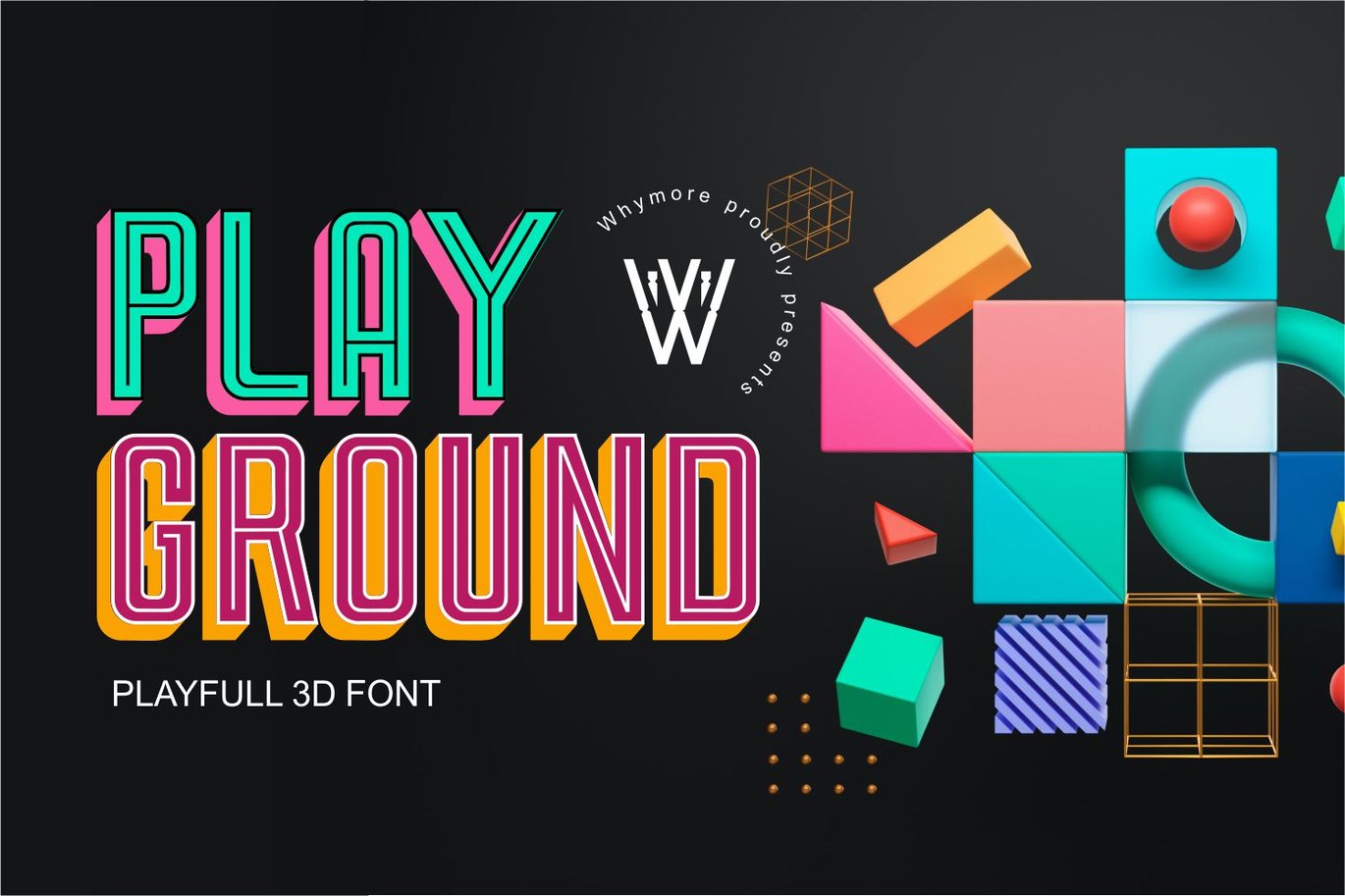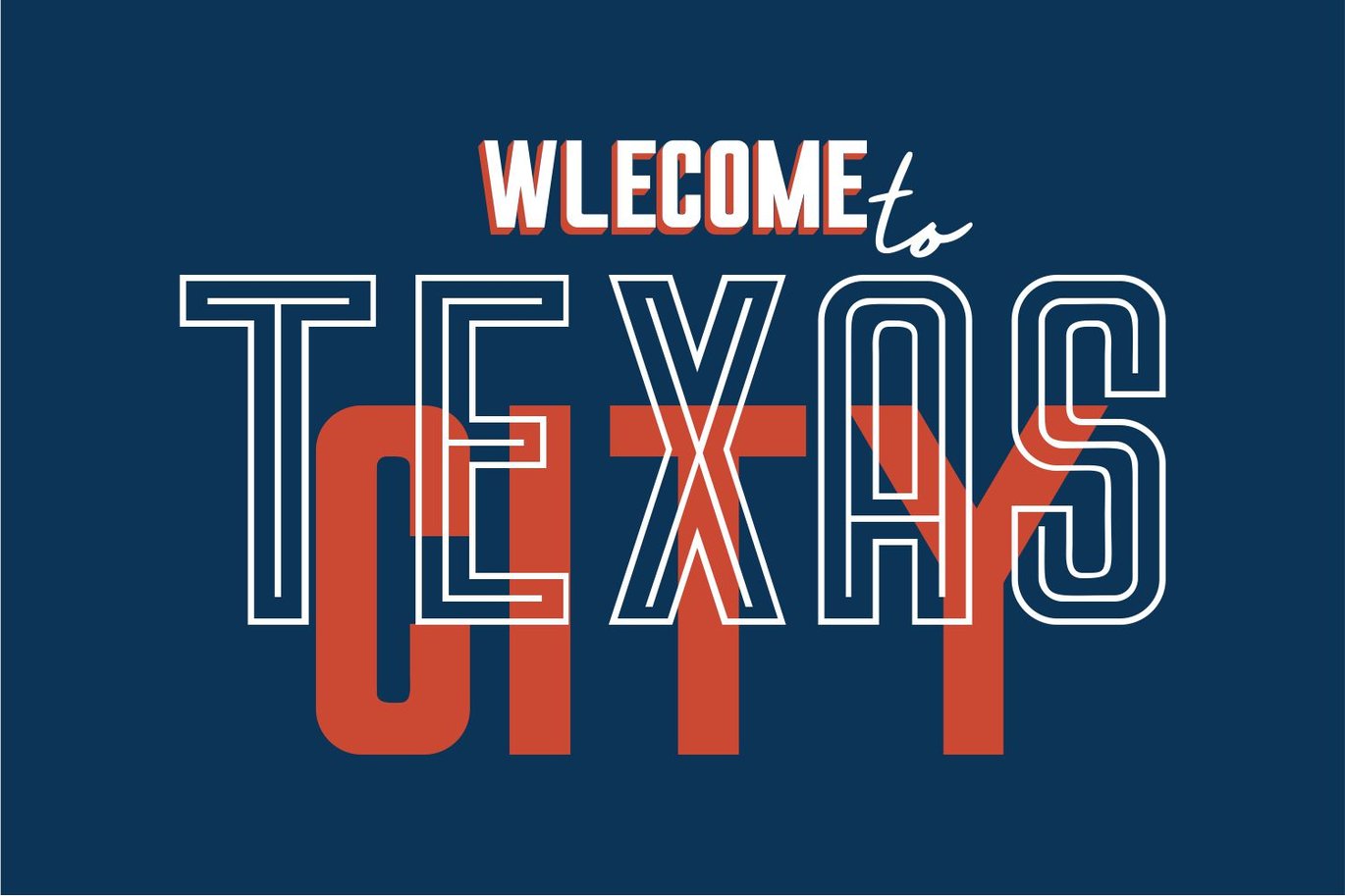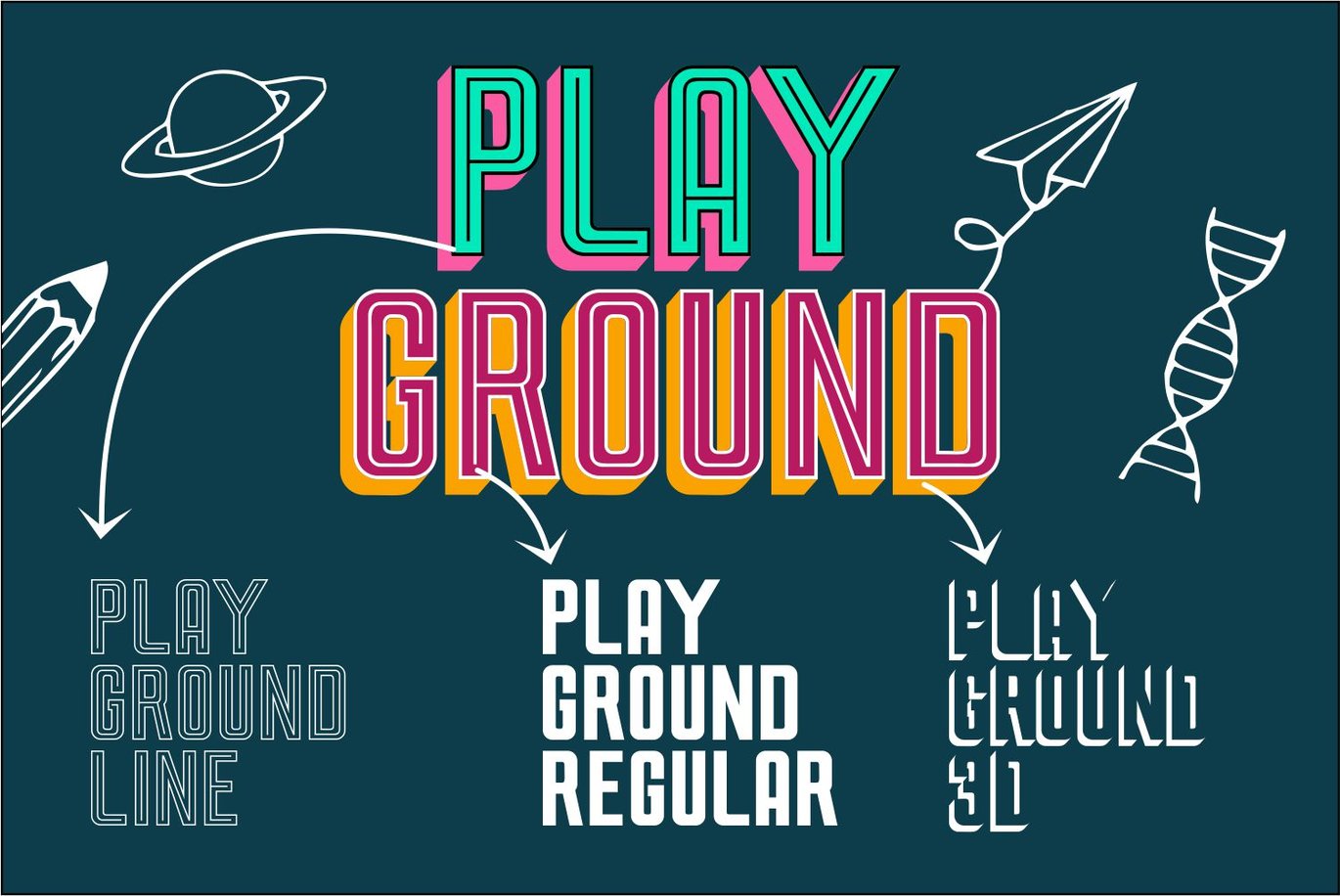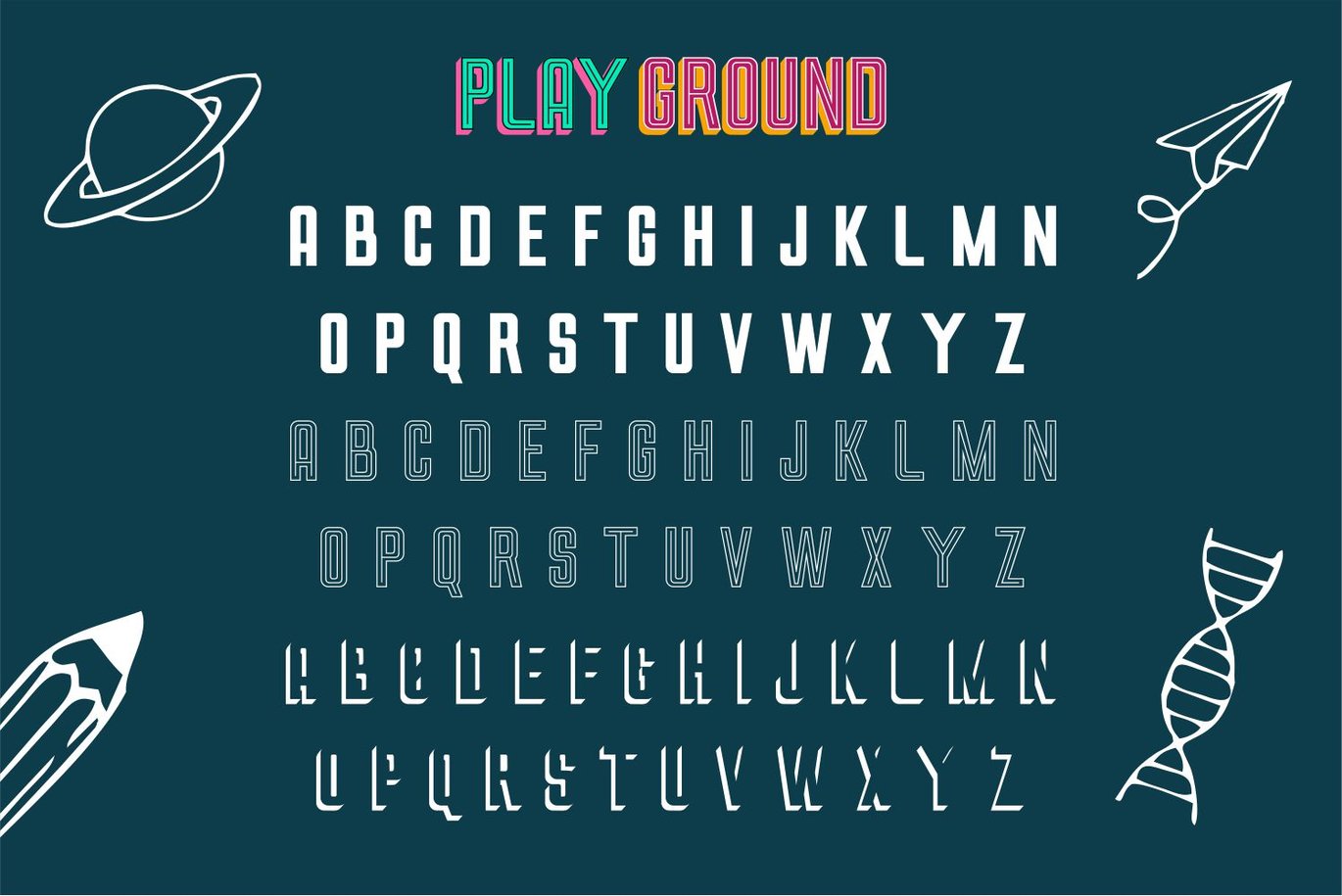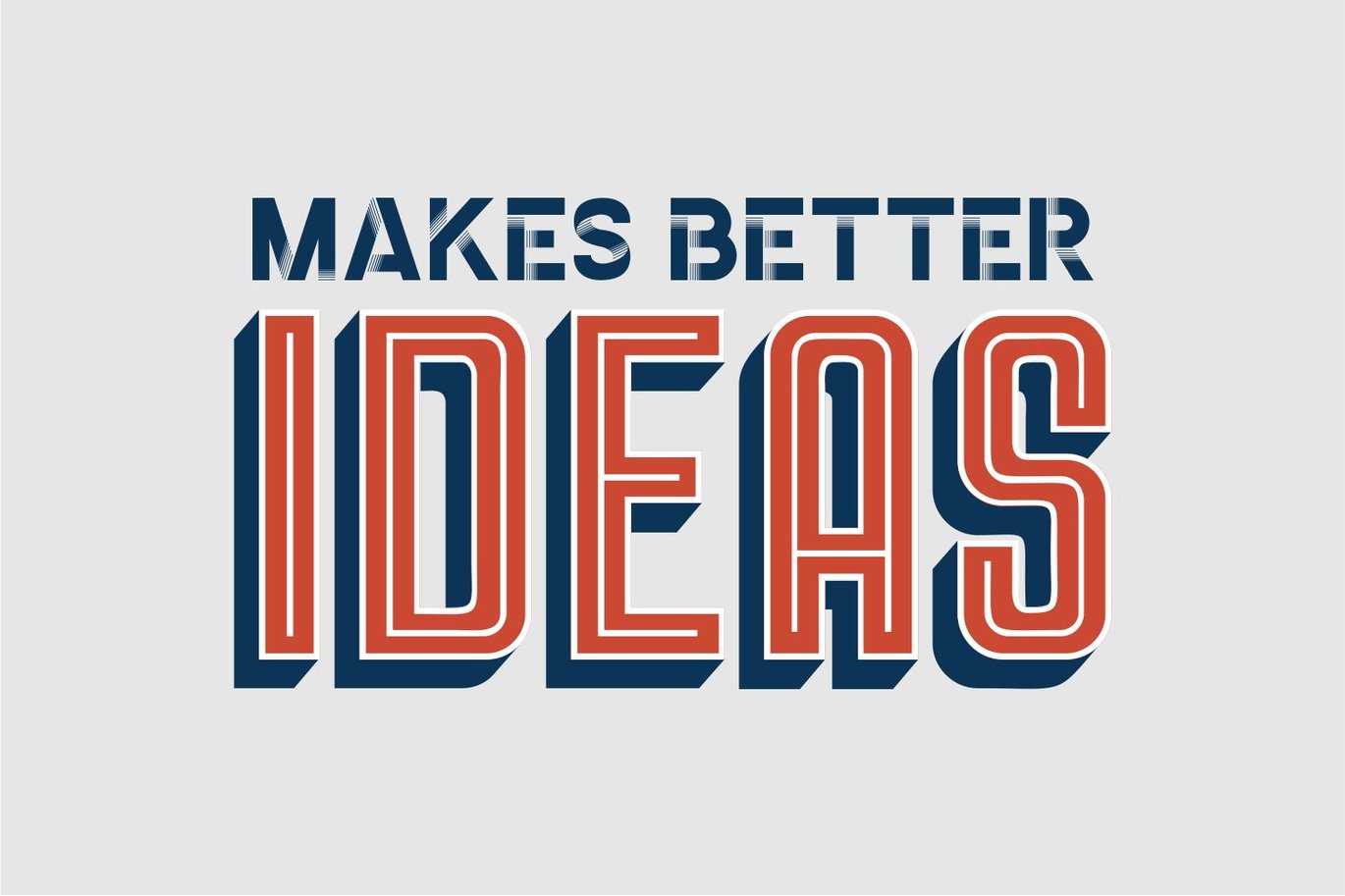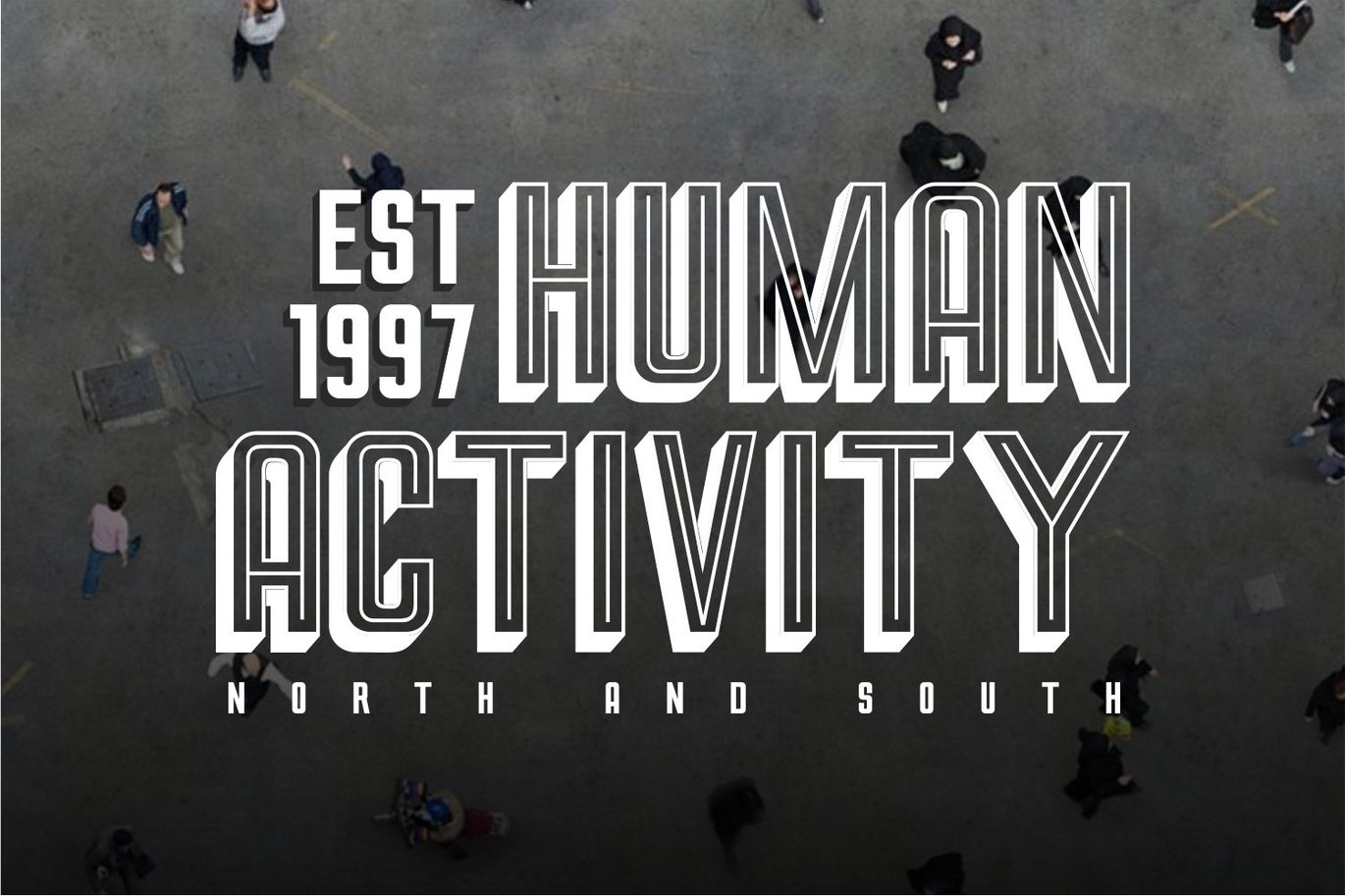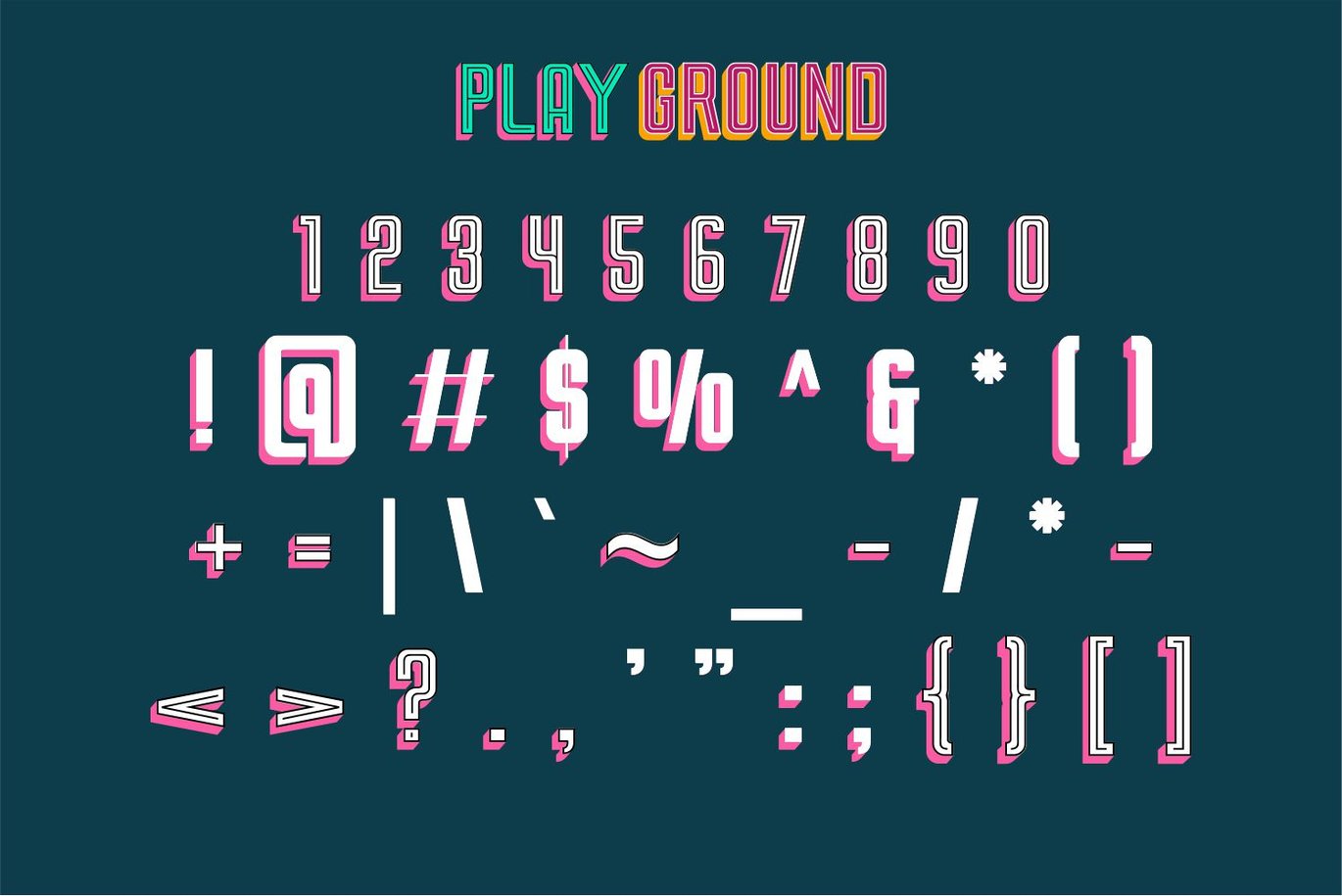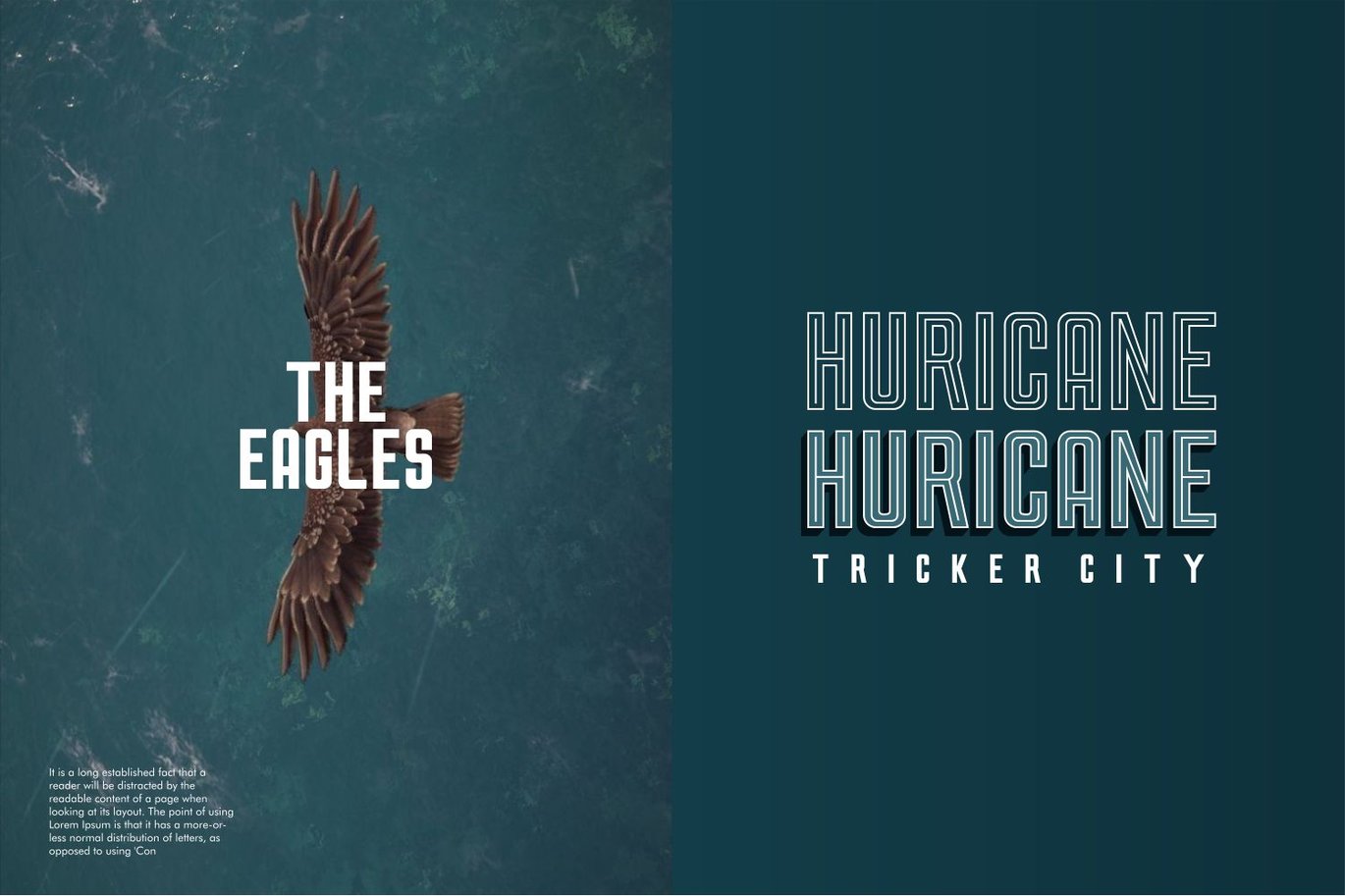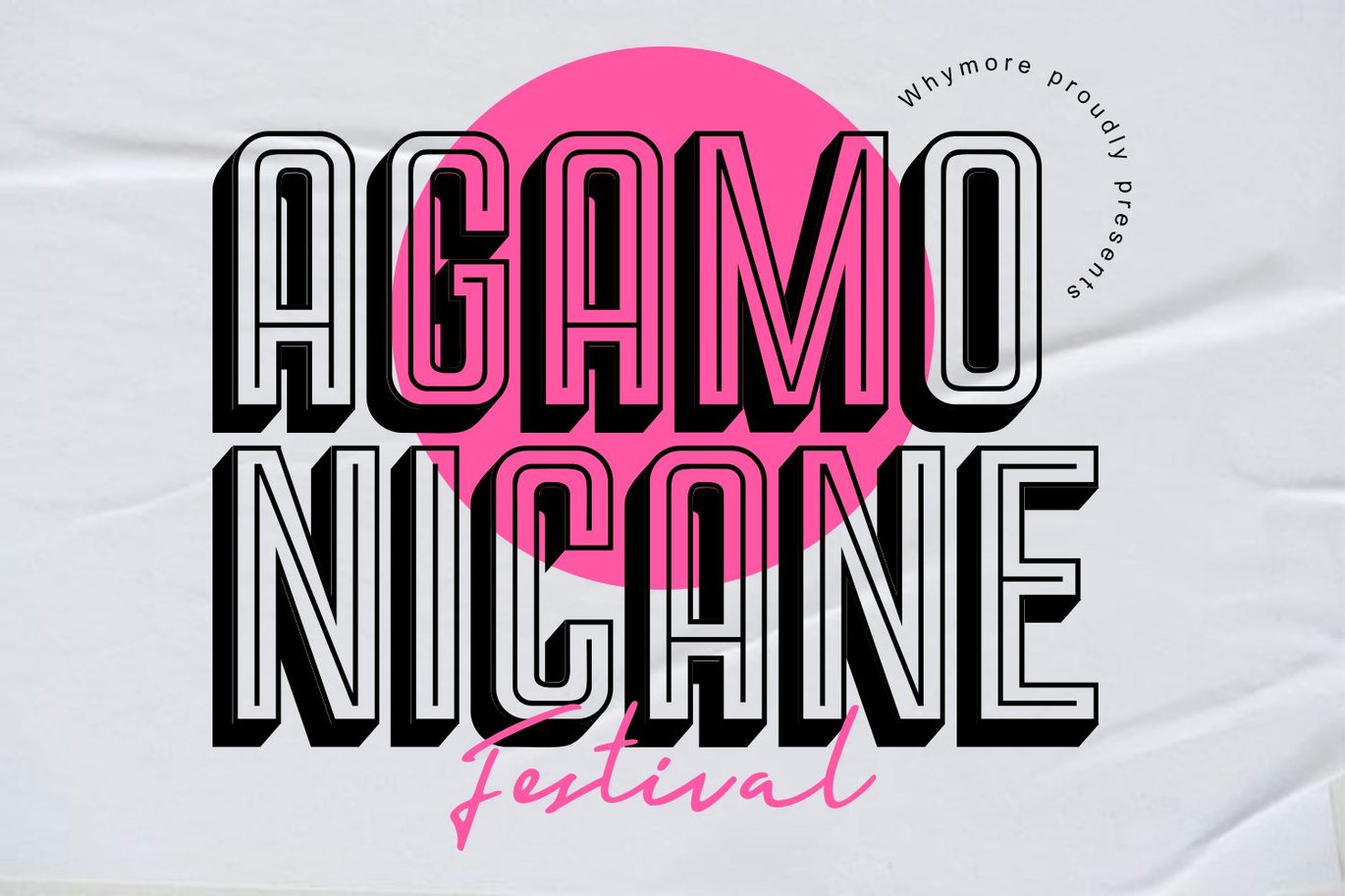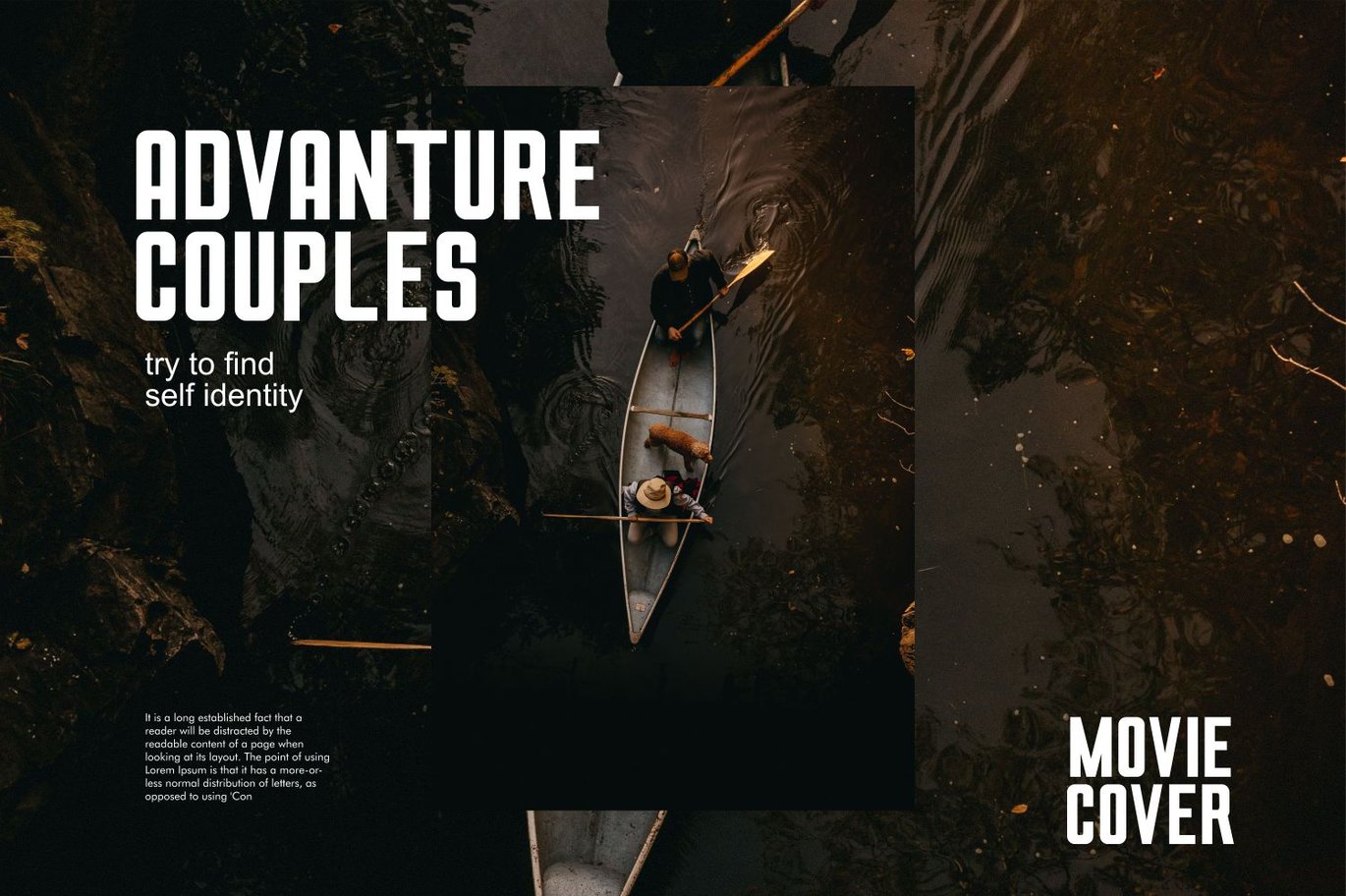
how to design a poster with great fanfare.
You can explore with decorative fonts like Play Ground.
The 3D element in this font can make the headline on your poster or design more bold. there are also lines that provide textural sentiments to fill the field of the play ground font which in fact has a thick font shape.
Play Ground Fonts is suitable for backto school fonts with 3d styles.